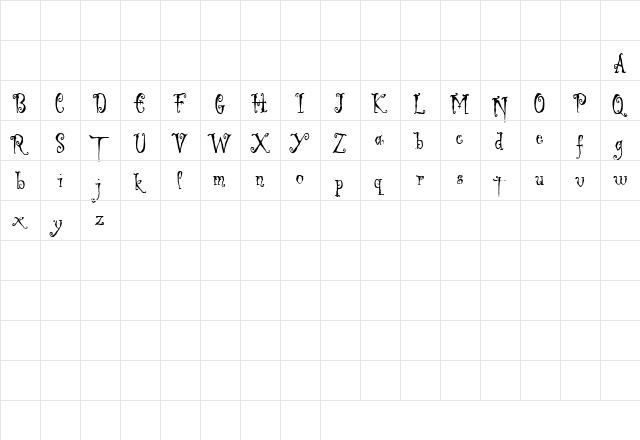
Ligeia Demo Regular
Design Context for Ligeia Demo Typeface
Ligeia Demo is a composed and adaptable typeface that performs quietly and consistently across a wide range of design contexts.
Pro Tip: Use Ligeia Demo in both headline and body roles to test its range before committing to a single application.